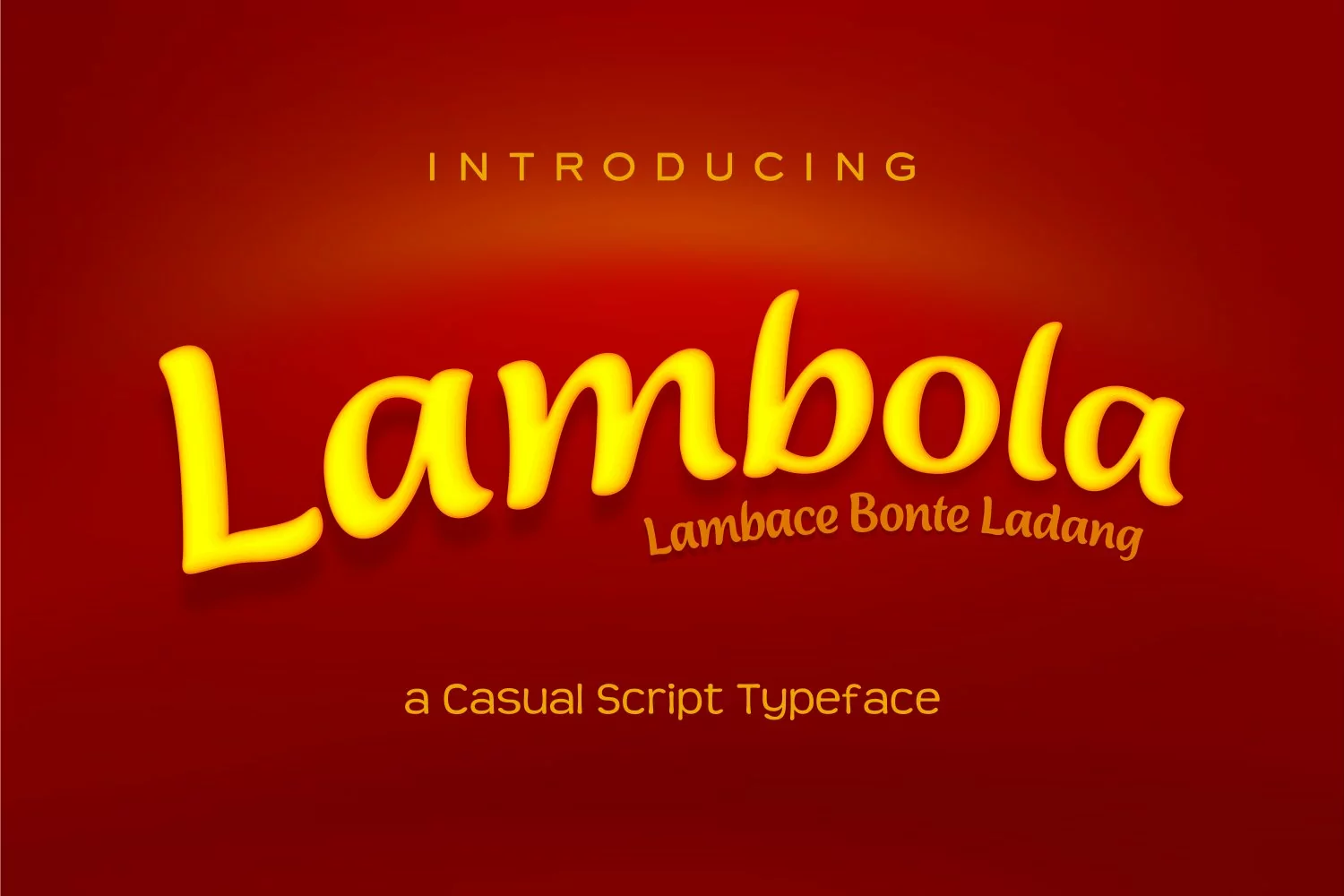
Lambola
Lambola is casual script, flexible and dynamic. can be use on any design project such as food and beverage product, healthy product, kids fashion, etc